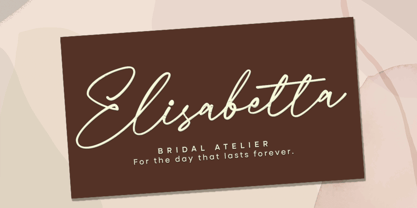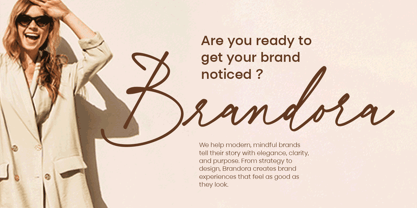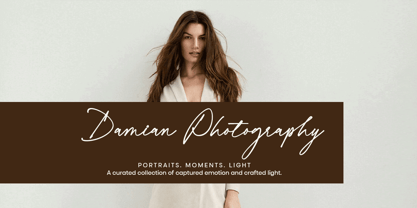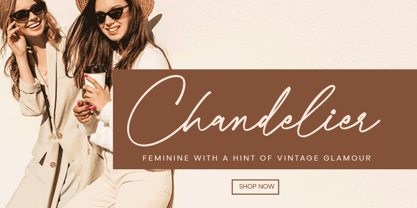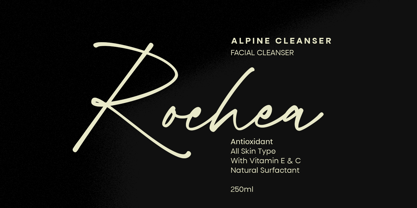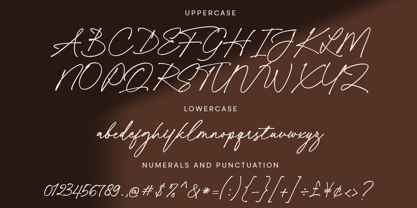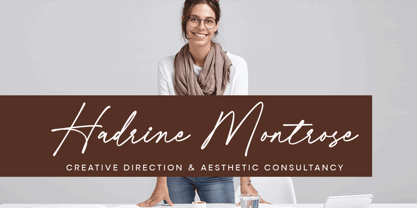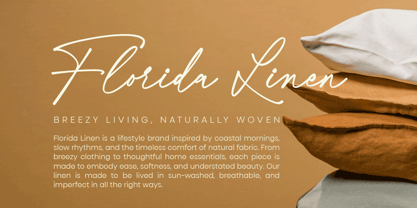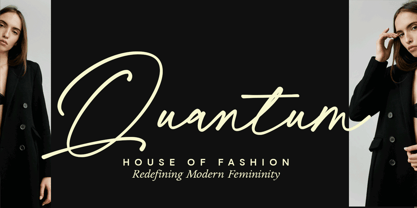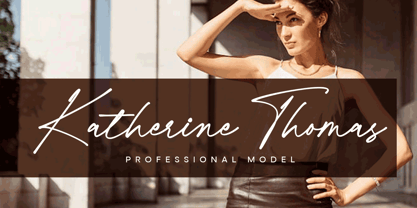
Aurora Gradient
Die Schriftfamilie Aurora Gradient wurde von Muhammad Ridha Agusni, Siti Saribanon Nurjannah entworfen und von Cititype veröffentlicht. Aurora Gradient enthält 1 Stile.
Aurora Gradient is a handwritten script font that radiates soft elegance and effortless charm. Inspired by modern femininity and the fluid rhythm of natural handwriting, this font is crafted to add a personal yet polished touch to every design.
With sweeping uppercase forms and gracefully connected lowercase letters, Aurora Gradient flows like ink on handmade paper, spontaneous, balanced, and full of character. It is perfect for boutique logos, product packaging, wedding stationery, and editorial headlines, wherever you need a touch of warmth and authenticity.
This font includes a set of discretionary ligatures to enhance natural letter flow, as well as support for Latin Extended languages, making it versatile for a wide range of global branding needs. Every detail was designed with intention to ensure a refined handwritten look that feels expressive and timeless.
Let Aurora Gradient be the signature that elevates your next beautiful brand.